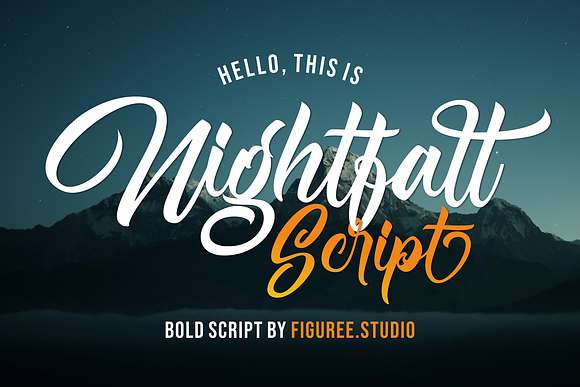
Nightfall Script Font
Nightfall Script Font is perfect for gothic romance novels, dark luxury branding, mysterious event invitations, nocturnal beauty products, shadowy restaurant signage, haunting fashion campaigns, twilight wedding materials, midnight lounge branding, enigmatic personal stationery, and atmospheric entertainment venues.
What makes Nightfall Script Font so exciting is its extraordinary ability to capture the seductive allure and mysterious beauty of twilight hours through flowing script letterforms that seem to emerge from shadows and dance with the elegant darkness of falling night. This captivating typeface embodies the essence of nocturnal romance and mysterious elegance with characters that radiate both gothic sophistication and intimate allure. The font's shadowy design elements perfectly balance dark romanticism with readable elegance, creating an indispensable tool that communicates mysterious beauty, nocturnal sophistication, and romantic darkness, making it essential for brands and projects celebrating the enchanting magic of nighttime and the seductive power of shadows and twilight atmospheres.
Nightfall Script Font comes in multiple font families including Regular, Bold, Light, Flowing, Shadow, Condensed, Extended, and Mysterious variations. Each family member maintains the core nocturnal characteristics while offering different darkness levels and romantic approaches to suit various gothic and atmospheric design requirements.
The Nightfall Script Font Free Download provides gothic brands and atmospheric organizations with an exceptional resource for creating enchanting materials that celebrate the mysterious beauty of nighttime while captivating audiences seeking dark romantic aesthetics and nocturnal sophistication. This remarkable typeface distinguishes itself through its unique ability to communicate themes of gothic romance, mysterious elegance, and nocturnal allure. Whether you're developing dark luxury brands, creating gothic wedding materials, or designing atmospheric entertainment venues, this font ensures your message flows with the seductive darkness and romantic mystery that night-loving audiences find irresistibly captivating and beautifully atmospheric.
The mysterious precision in Nightfall Script Font makes it particularly effective for luxury gothic and atmospheric entertainment industries where conveying dark romantic sophistication and mysterious elegance is crucial for creating captivating experiences that embrace the beauty of darkness and nocturnal romance. Its shadowy letterforms work beautifully across both intimate gothic applications and broader atmospheric communications, maintaining consistent mysterious appeal and dark romantic presentation.
Gothic romance professionals appreciate how Nightfall Script Font transforms ordinary communications into captivating invitations to nocturnal beauty and mysterious elegance. The typeface's shadowy character set includes special gothic symbols, mysterious decorative elements, and romantic features that enhance the overall atmospheric darkness of any gothic or nocturnal project.
For creative professionals serving gothic fashion, dark luxury brands, and atmospheric entertainment venues, Nightfall Script Font serves as the perfect foundation for establishing memorable visual identities that capture the essential qualities of gothic romance, mysterious beauty, and nocturnal sophistication that define successful brands celebrating the enchanting allure of darkness and the seductive power of nighttime mysteries and shadowy elegance.